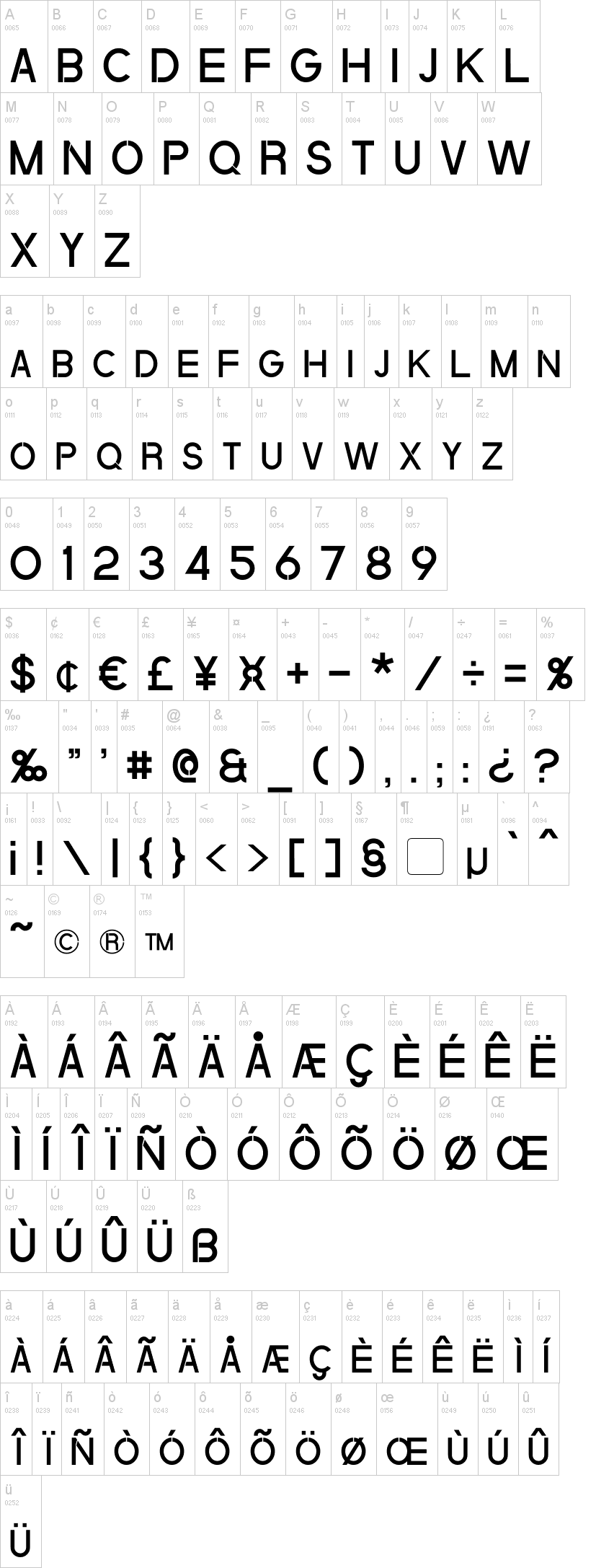
Quantum Italic.otfNote of the authorThis simple, 'classic-sans' typeface is based on the title credits of the James Bond movie "Quantum of Solace". Includes full alphabet, extended punctuation, Euro. Includes italic version.